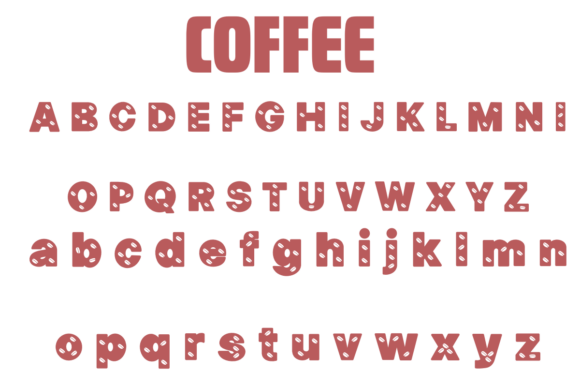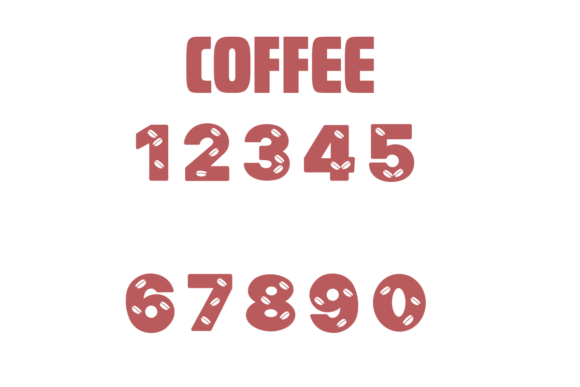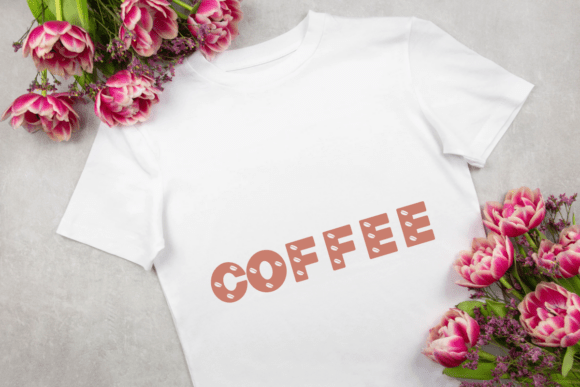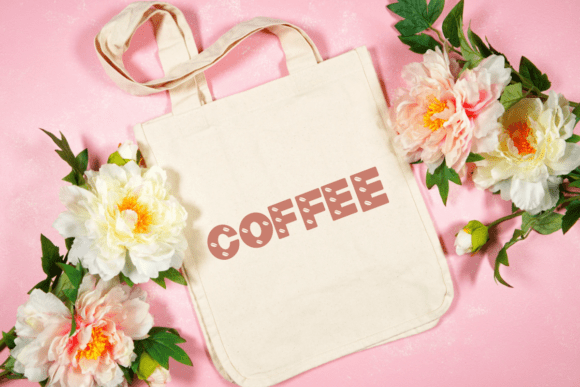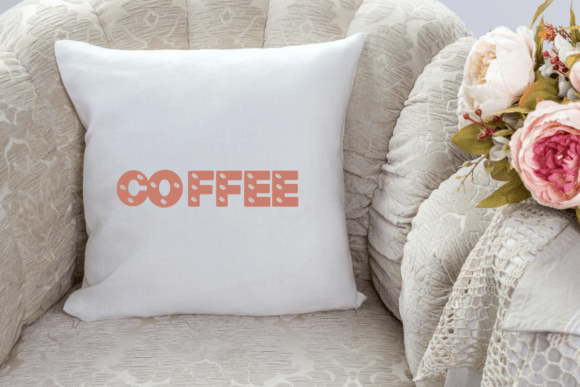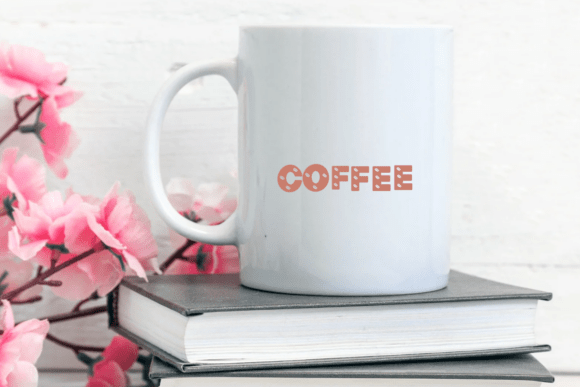
Coffee Font: The Perfect Decorative Font for Your Creative Projects
Are you a designer, crafter, or DIY enthusiast looking for a unique and creative font to add a personal touch to your projects? Look no further than the Coffee Font! This decorative font is perfect for taking notes, writing a diary, or making greeting cards, but its uses don’t stop there. In this article, we’ll explore the versatility of the Coffee Font and how you can use it to elevate your designs.
What is Coffee Font?
Coffee Font is a beautiful, hand-crafted font that is designed to add a touch of warmth and personality to your projects. Its unique and quirky style makes it perfect for a wide range of applications, from creative writing to graphic design. Whether you’re looking to add a personal touch to your journal entries, create eye-catching social media posts, or design custom stationery, the Coffee Font is the perfect choice.
Uses of Coffee Font
So, what can you use the Coffee Font for? The possibilities are endless! Here are just a few ideas to get you started:
- Note-taking and journaling: Add a personal touch to your notes and journal entries with the Coffee Font. Its unique style makes it easy to read and adds a touch of creativity to your writing.
- Greeting cards and invitations: Create beautiful, one-of-a-kind greeting cards and invitations with the Coffee Font. Perfect for birthdays, holidays, and special occasions.
- Banners and signs: Use the Coffee Font to create eye-catching banners and signs for parties, events, and promotions.
- Social media posts: Add a touch of personality to your social media posts with the Coffee Font. Perfect for creating engaging and shareable content.
- Mugs, cards, and shirts: Design custom mugs, cards, and shirts with the Coffee Font. A great way to add a personal touch to gifts or promotional items.
- Stationery and paper crafts: Use the Coffee Font to create beautiful stationery, paper crafts, and other DIY projects.
Why Choose Coffee Font?
So, why choose the Coffee Font over other decorative fonts? Here are just a few reasons:
- Unique and creative: The Coffee Font is a one-of-a-kind font that adds a touch of personality to your projects.
- Easy to read: Despite its decorative style, the Coffee Font is easy to read and understand.
- Versatile: The Coffee Font can be used for a wide range of applications, from creative writing to graphic design.
- High-quality: The Coffee Font is a high-quality font that is designed to produce crisp, clear results.
Tips for Using Coffee Font
Here are a few tips for getting the most out of the Coffee Font:
- Experiment with different colors: The Coffee Font looks great in a variety of colors, so don’t be afraid to experiment and find the perfect shade for your project.
- Mix and match with other fonts: The Coffee Font pairs well with other fonts, so try mixing and matching it with different styles to create a unique look.
- Use it for headings and titles: The Coffee Font is perfect for headings and titles, so use it to add a touch of personality to your text.
In conclusion, the Coffee Font is a versatile and creative decorative font that is perfect for designers, crafters, and DIY enthusiasts. Its unique style and ease of use make it perfect for a wide range of applications, from creative writing to graphic design. Whether you’re looking to add a personal touch to your journal entries, create eye-catching social media posts, or design custom stationery, the Coffee Font is the perfect choice. So why not give it a try and see what amazing projects you can create?